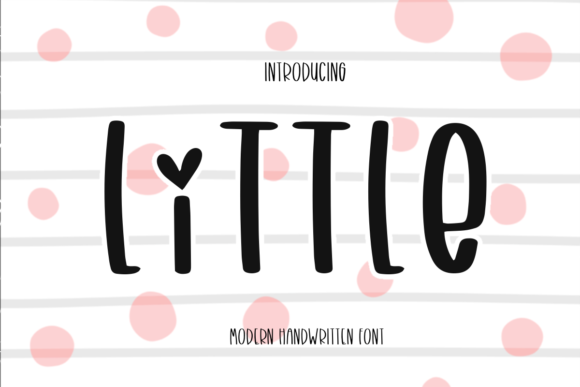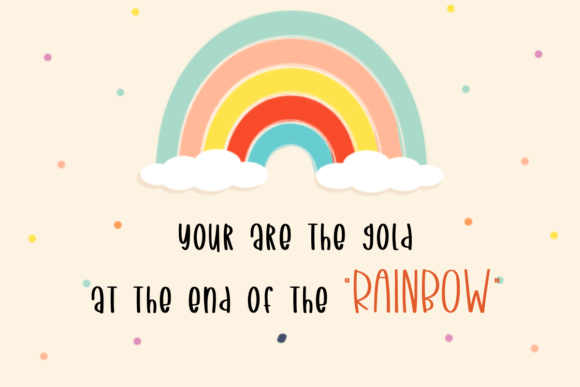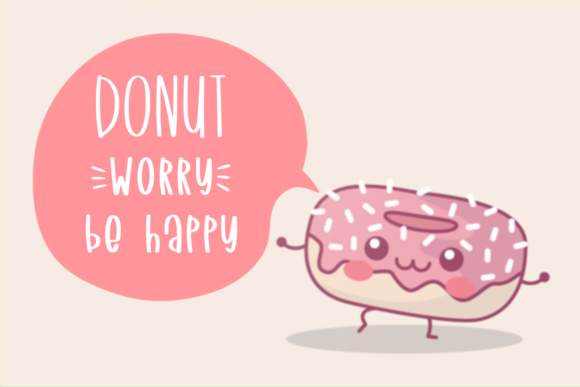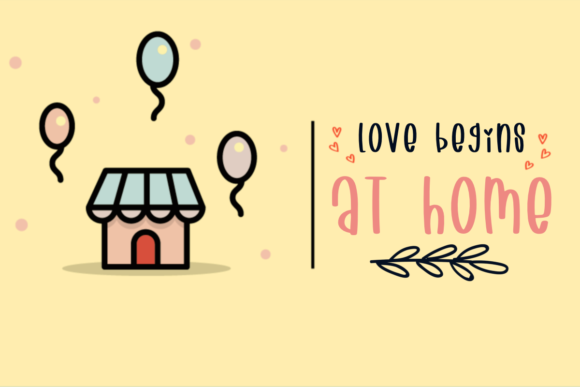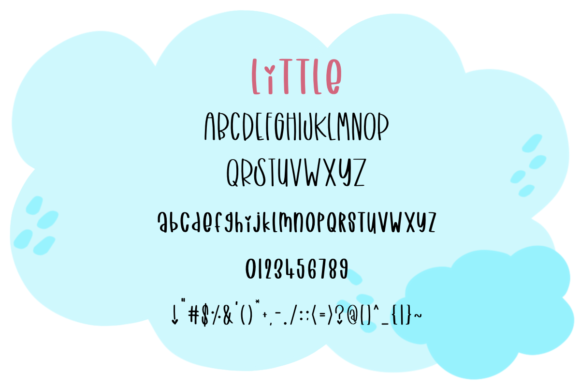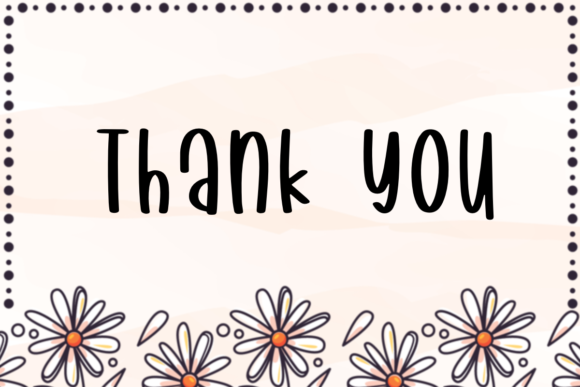
Little Font
About Little Font
Little is a sweet and friendly handwritten font. Fall in love with its incredibly versatile style and use it to create spectacular designs!